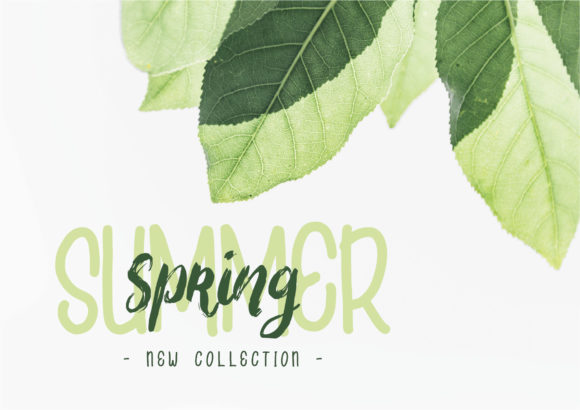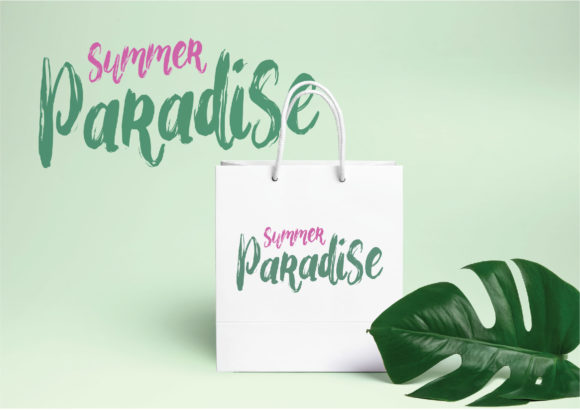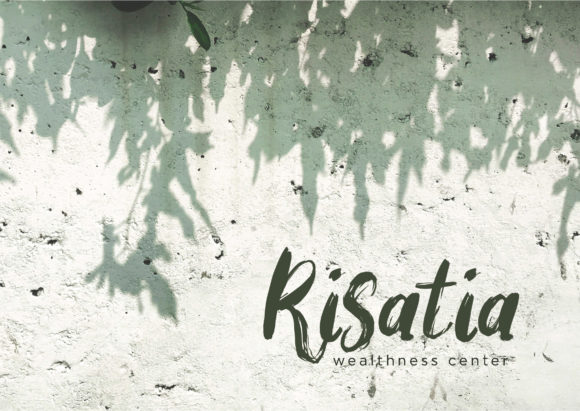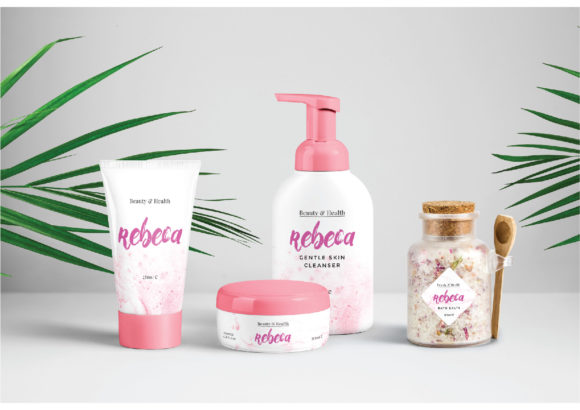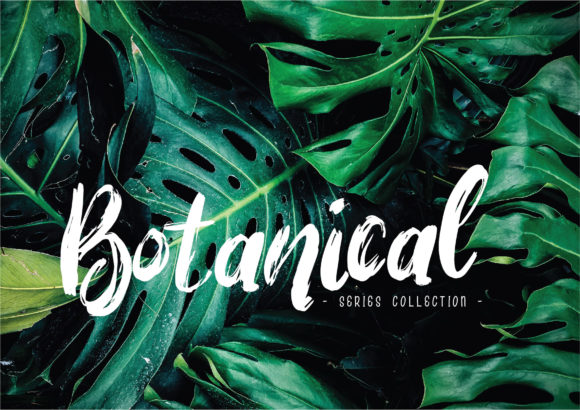
HomeScript FontsBigarus Font Script Fonts Bigarus Font FacebookXPinterestWhatsApp Bigarus Font Poster 2 Bigarus Font Poster 3 Bigarus Font Poster 4 Bigarus Font Poster 5 Bigarus Font Poster 6 About Bigarus Font Bigarus is a fun and bold handwritten font with a botanical feel. Get inspired by its authentic charm! DOWNLOAD ON CREATIVE FABRICAThis font is sold and delivered by Creative Fabrica. Font Canyon may earn a commission if you buy through this link. People also explored Selomitta Font Farmhouse Sign Mockup Mock-Up Stilda Font Ghilby Font Beauty Sunset Font Don_t Worry Font Elaina Family Font Mistari Font Melody Memory Font 256 0 TagsBigarus Font Previous articleKontinh FontNext articleShimpatti Font LEAVE A REPLY Cancel reply Comment: Please enter your comment! Name:* Please enter your name here Email:* You have entered an incorrect email address! Please enter your email address here Website: Save my name, email, and website in this browser for the next time I comment. Personal Use Free The Bocah Personal Use Free Read more about this font Hearted Personal Use Free Read more about this font Knucklehead Personal Use Free Read more about this font Cute Butterfly Personal Use Free Read more about this font BLOG Best Fonts for YouTube Videos: Make Your Thumbnails Stand Out Best Fonts for YouTube Videos: Make Your Thumbnails Stand Out Choosing the right font can make a massive difference in how your YouTube videos perform.... 5 Fonts That Will Dominate Design Trends in 2026 To increase your work productivity, choose the most readable fonts. Where to Buy American Fonts Online in 2024